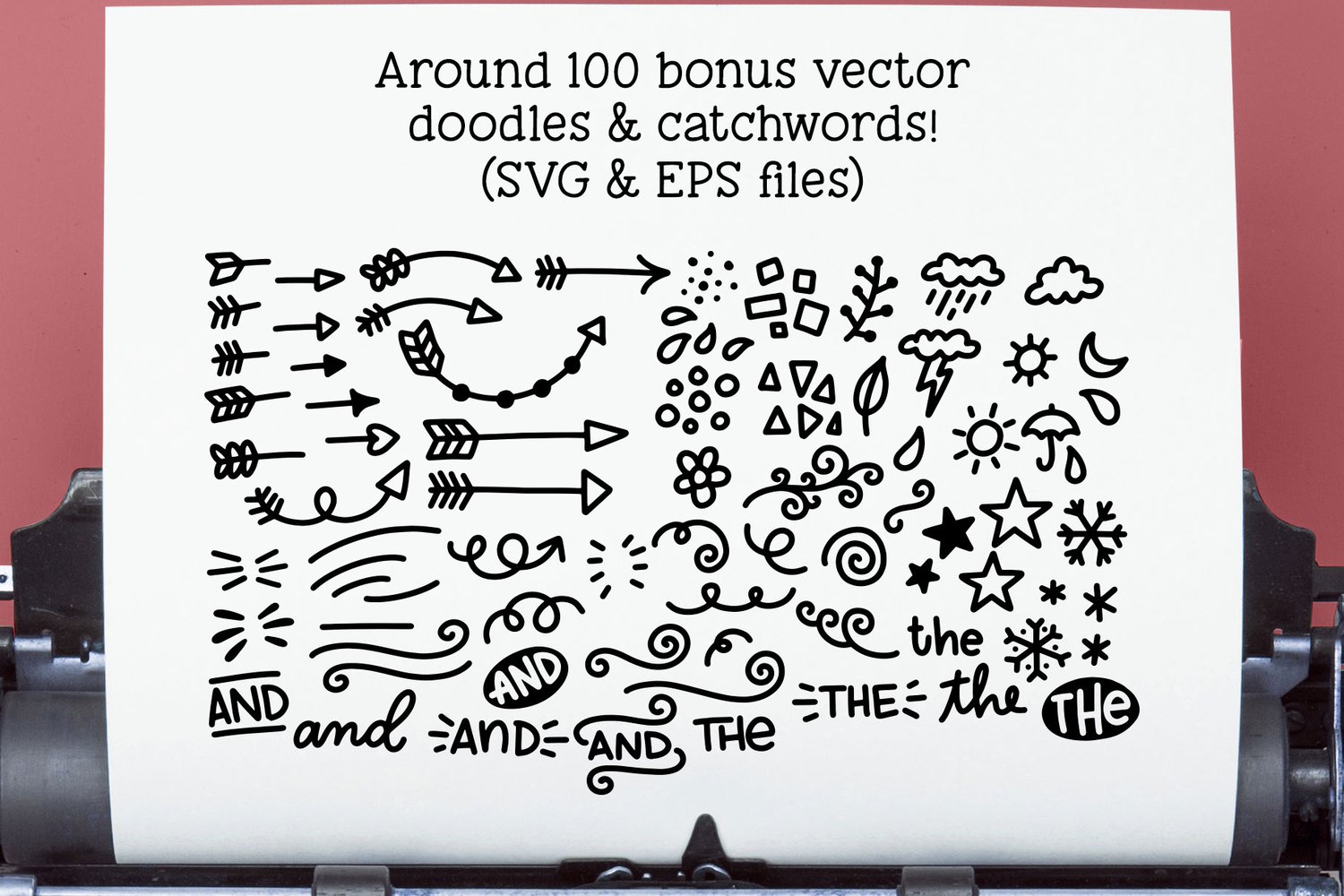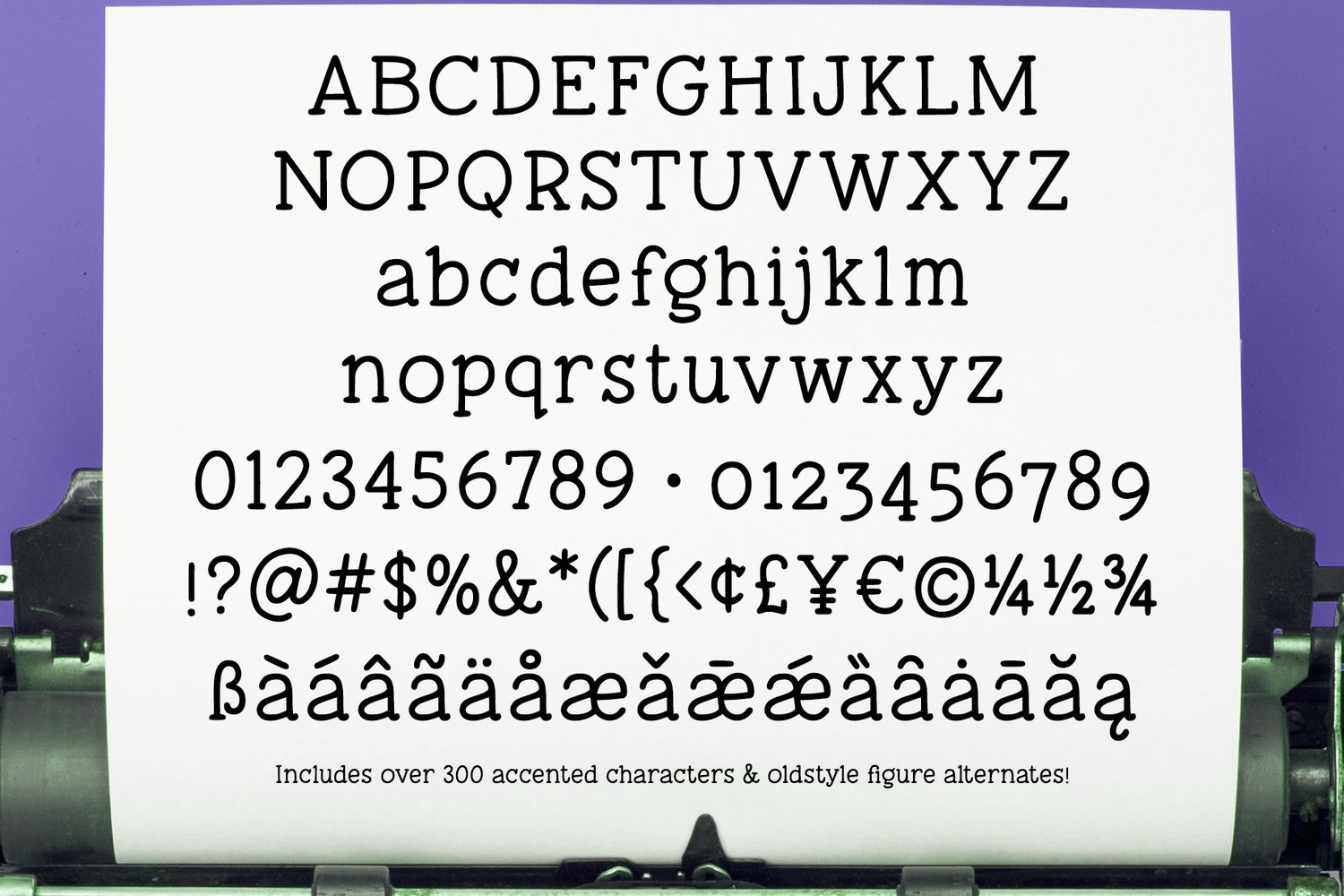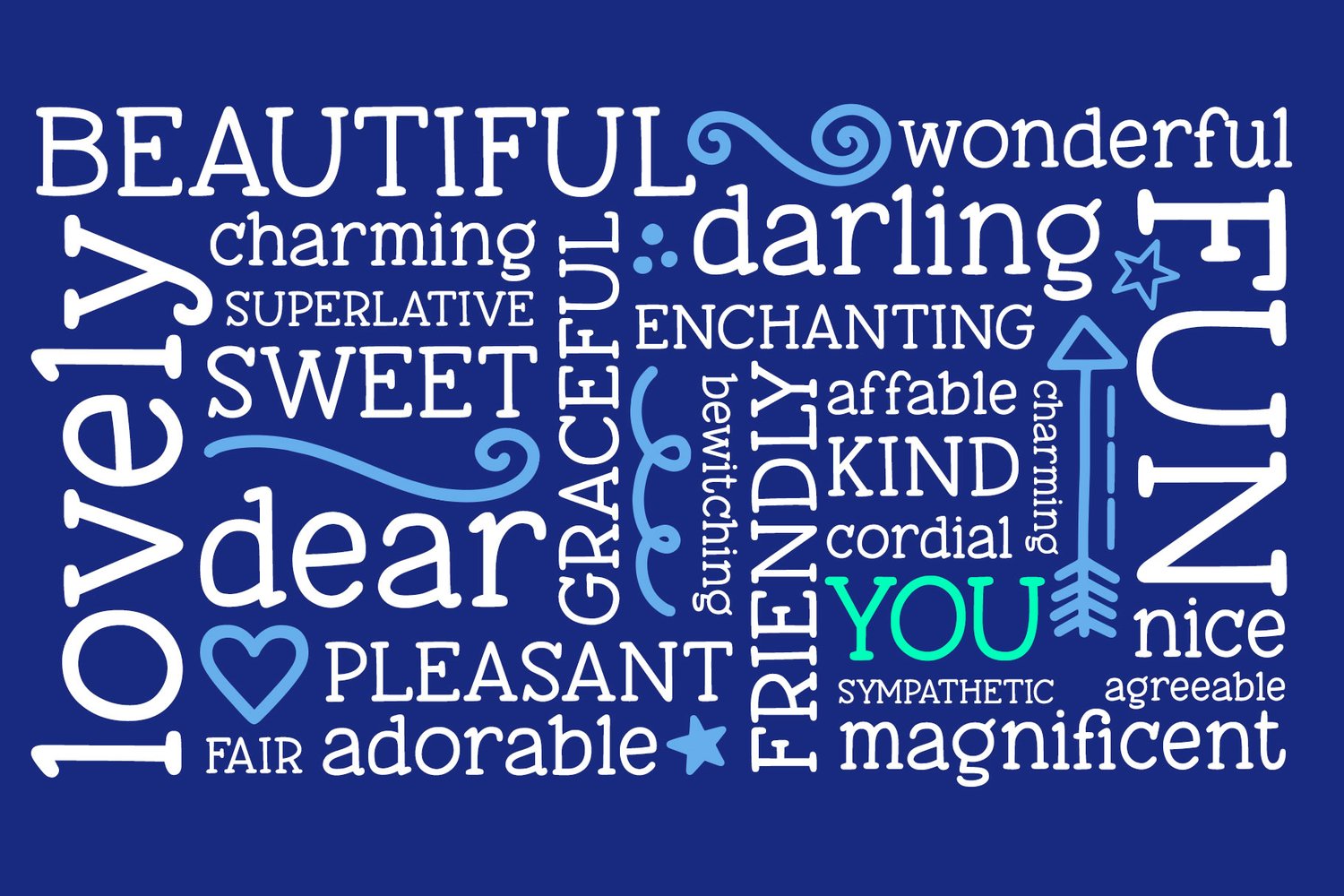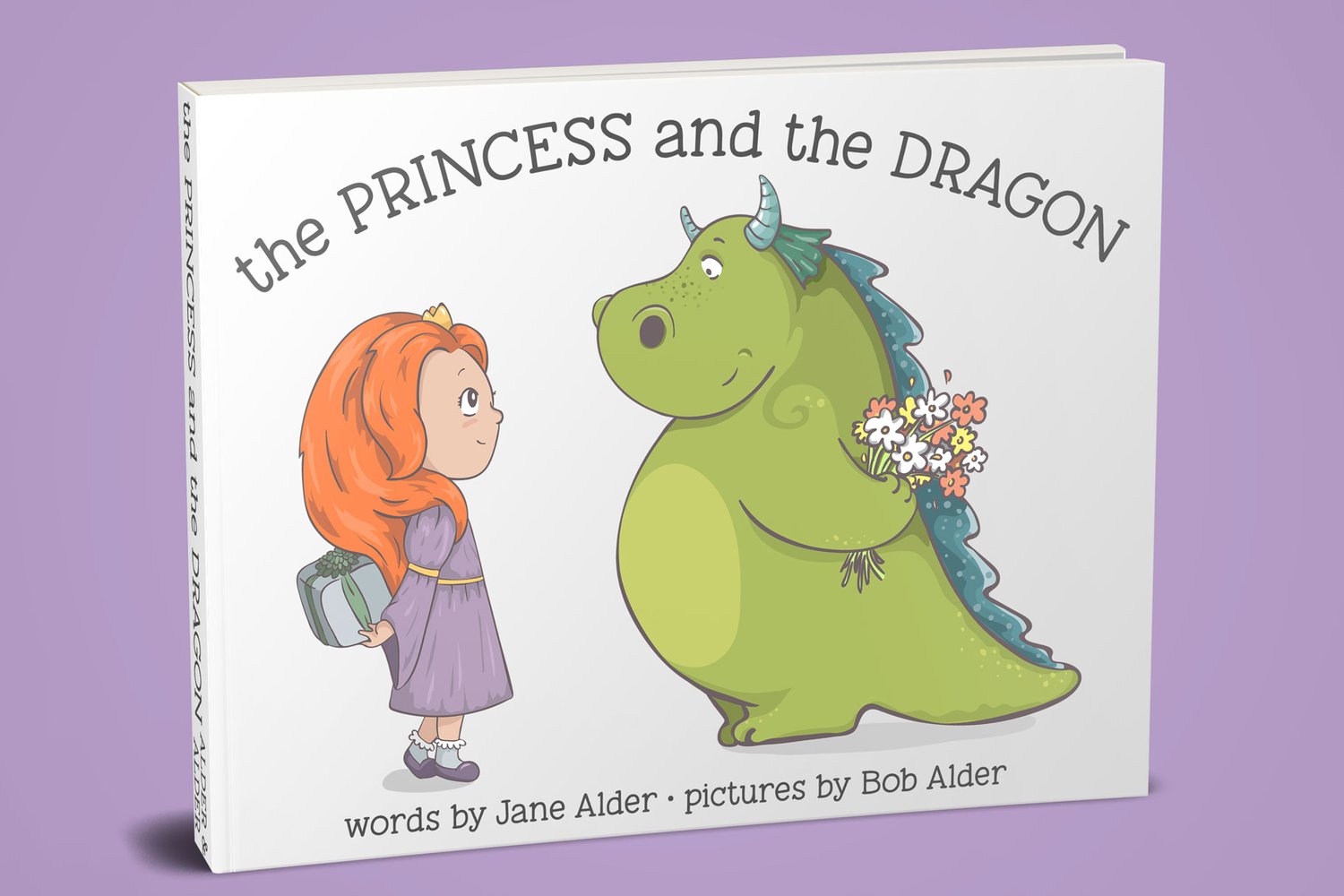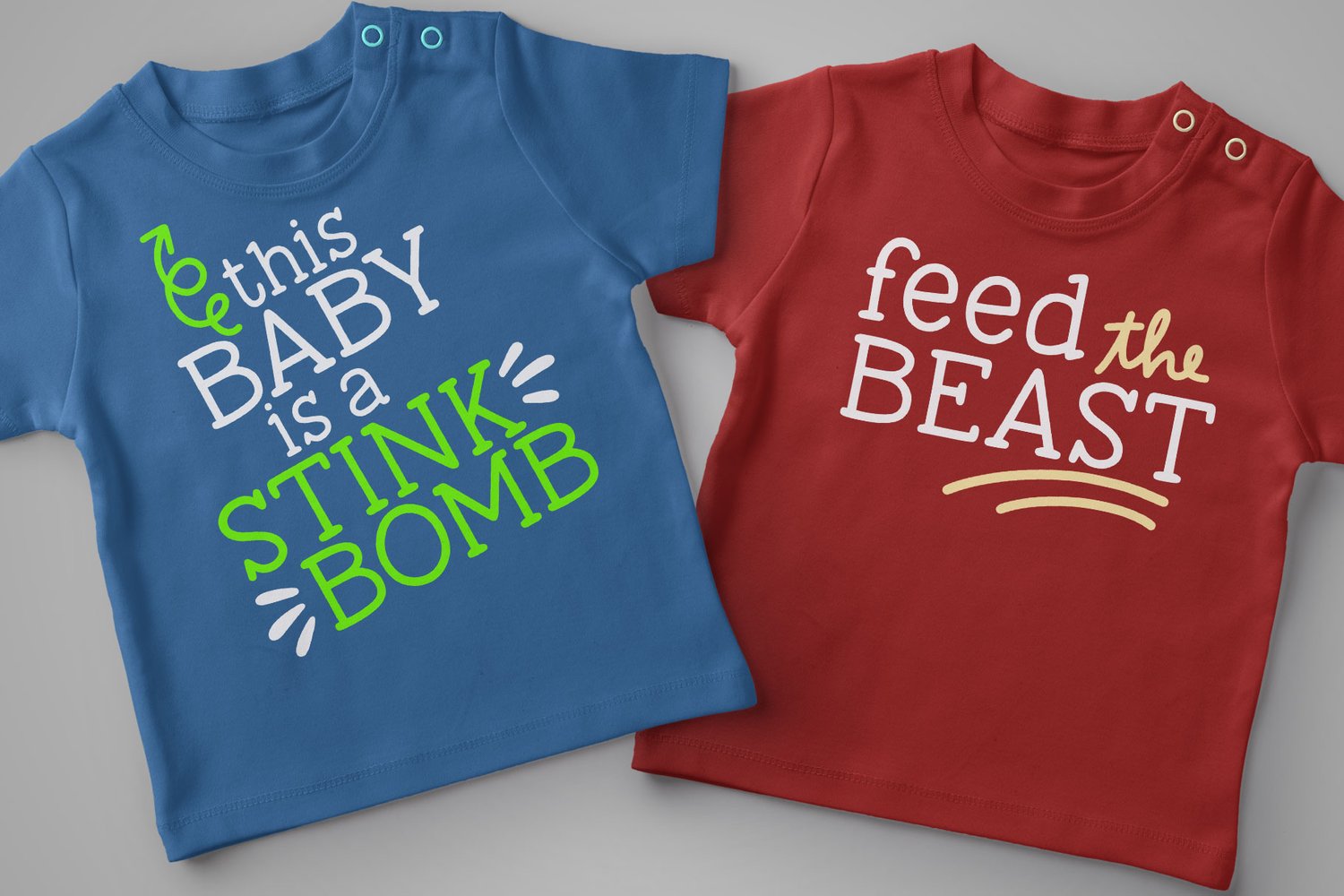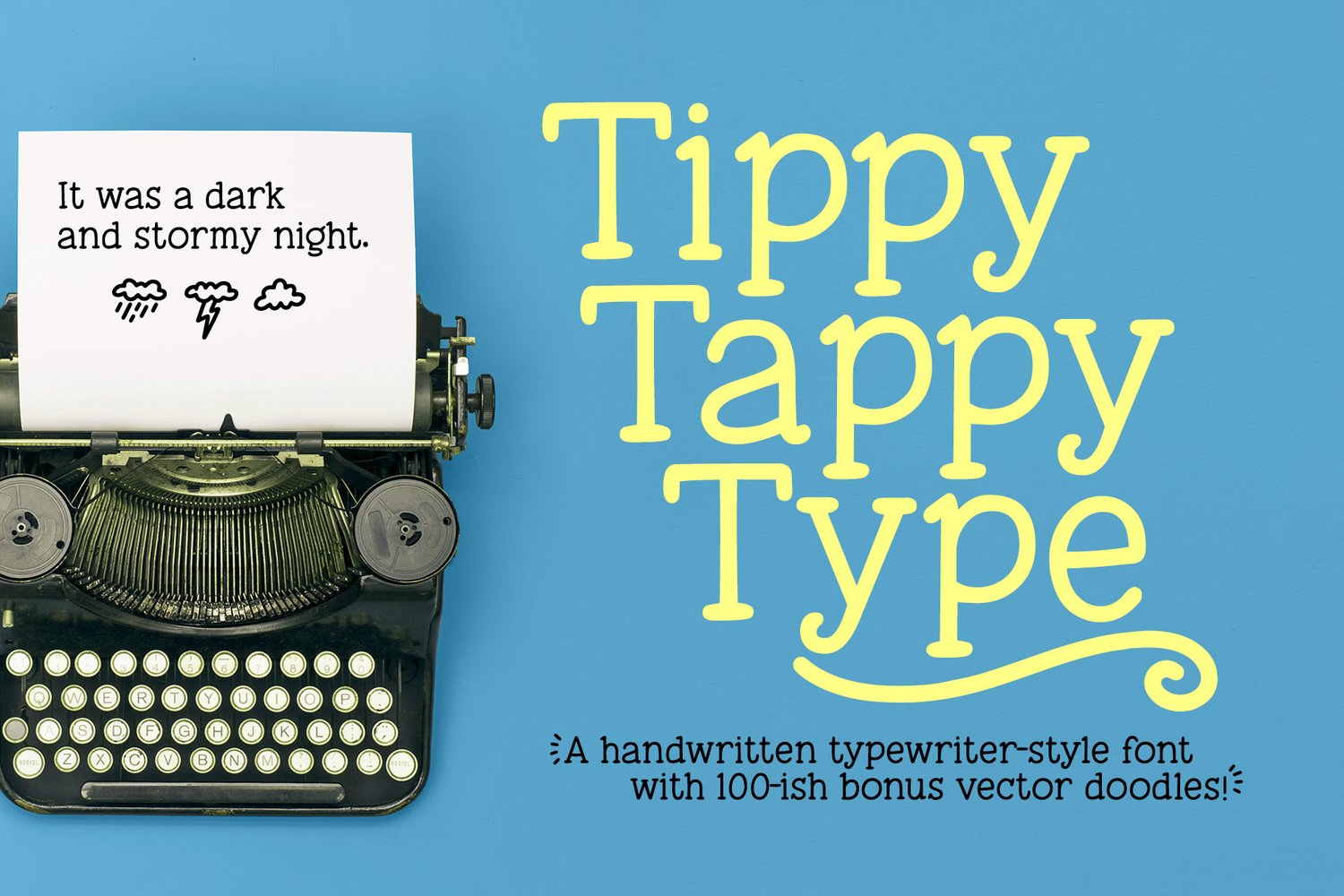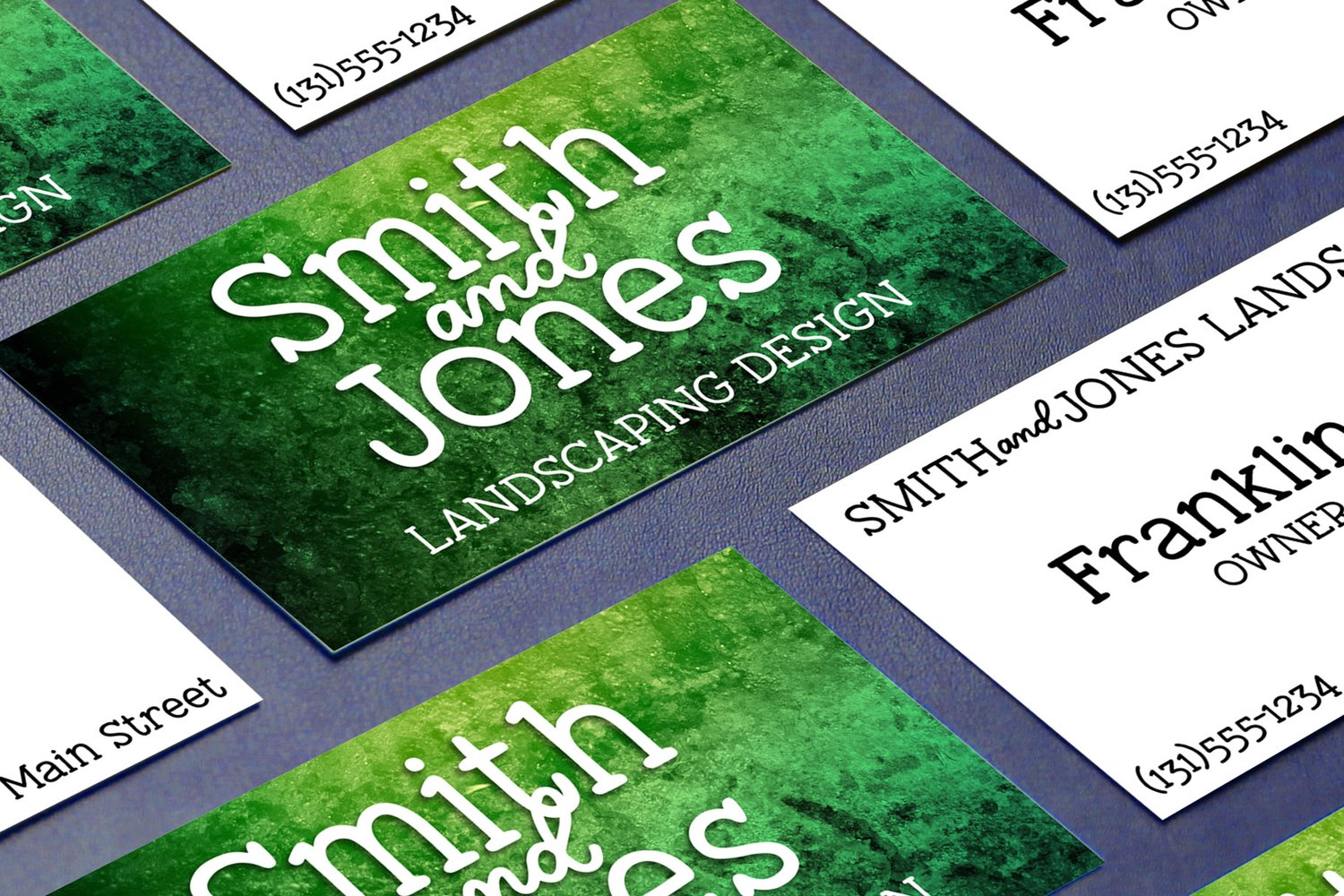
Tippy Tappy Type
In my house, we refer to typing with just the index fingers of each hand "tippy tappy typing." I'm not good with my thumbs, so if I have to type on my phone, I prefer to set it down flat and tippy tappy type on it.
Thus, when I decided to draw a font that's typewriter-ish, the name seemed perfect!
This one was all draw by hand, then cleaned up so it will both print and cut well. And to make things even more fun, I drew a set of almost 100 bonus items: doodles, shapes, squiggles, swirls, arrows, and catchwords of "and" and "the". They're included in the separate "Tippy Tappy Dingbats" font file, as well as all in one SVG and EPS file (if those are easier for you).
Tippy Tappy Type includes:
- The usual basics: A-Z, a-z, 0-9, and gobs of punctuation;
- Over 300 extended Latin characters for Western European and some Eastern European language support;
- Alternate oldstyle figures;
- Approximately 100 bonus doodles (in a font file, and in SVG and EPS; again, whatever works for you!).